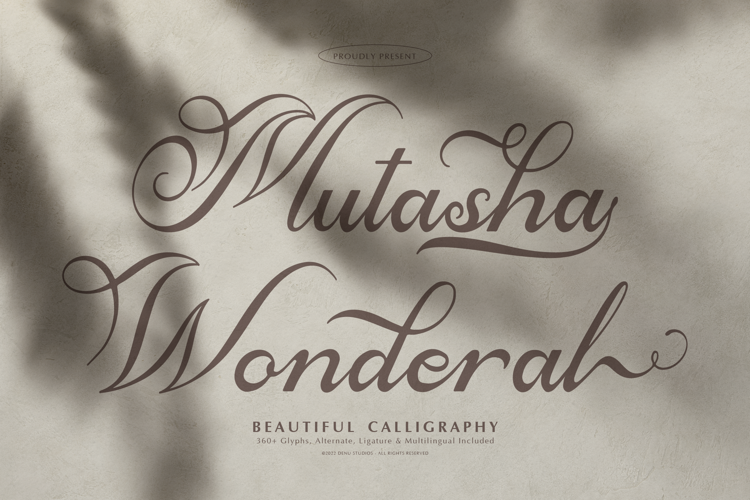
Mutasha Wonderal Font
Mutasha Wonderal | Beautiful Calligraphy product packaging, mugs, quotes, posters, shopping bags, t-shirts, book covers, name card, invitation cards, greeting cards, label, photography, watermark, special events, and all your other lovely projects that need a Beautiful Calligraphy taste.